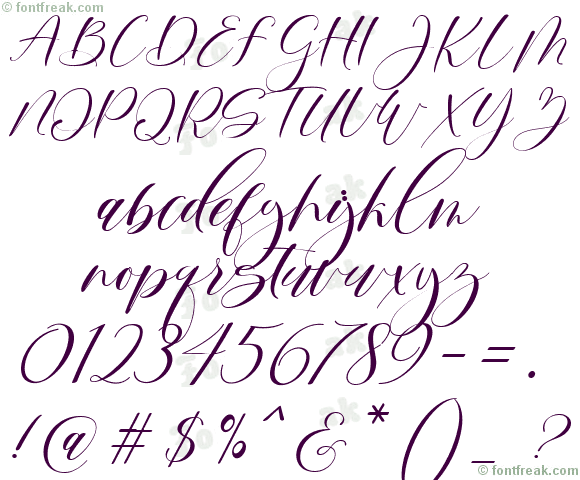
Mortyni-Regular
Mortyni-Regular by Aqeela Studio is a stunning script font that captures the essence of elegance and creativity. This font features a fluid design with graceful curves and flowing lines, making it an ideal choice for projects that require a touch of sophistication. The stroke weight is consistent, offering a balanced contrast that is visually appealing, while the spacing is thoughtfully designed to enhance readability without compromising style. Mortyni-Regular incorporates decorative elements that evoke a sense of artistry, making it stand out among other script fonts.
This versatile typeface excels in various applications, particularly in wedding invitations where its romantic flair can elevate the overall design. It is also perfect for movie posters, where the dynamic style can capture attention and convey a sense of drama. Additionally, restaurant menus can benefit from the inviting aesthetics of Mortyni-Regular, enticing patrons with its charm. Content creators will find it suitable for branding projects that aim to convey a personal touch, making it a great choice for logos and social media graphics.
The target audience for Mortyni-Regular includes graphic designers looking for a unique typeface to enhance their projects, small business owners seeking to establish a memorable brand identity, and content creators aiming to add an artistic flair to their work.
What sets Mortyni-Regular apart is its ability to blend elegance with versatility, making it a go-to font for both formal and casual settings. The Mortyni-Regular font free download is an excellent opportunity for designers and creators to explore its potential without any cost. With its captivating style and practical applications, this font is sure to inspire creativity in various design endeavors.